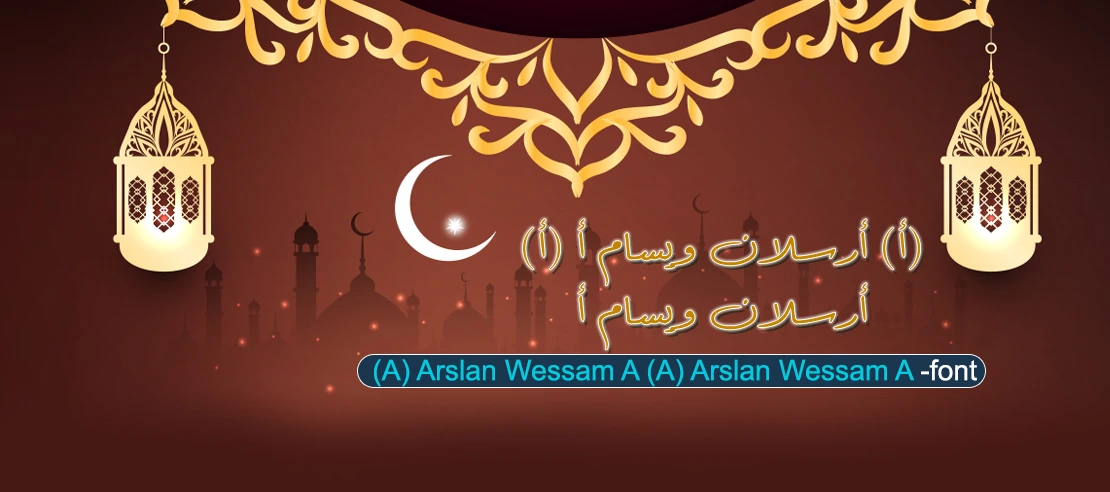
(A) Arslan Wessam A (A) Arslan Wessam A is the most broadly downloaded Arabic Font internationally. It is a remarkably versatile and exceptional arabic typeface that derives its characters and calligraphy from the Arabic Script.
The origins of Arabic Fonts and Calligraphy trace back to the time of the Quoran's inscription. This script has now established a global presence, being widely utilized on almost every continent. Its resemblance to the Urdu script is evident. Arabic Script encompasses five distinct writing styles, and the noteworthy aspect of this font is its suitability for all variations of Arabic Scripts. For a comprehensive understanding of the intricate designs and calligraphy, you can refer to the character map of this Arabic Font.
(A) Arslan Wessam A (A) Arslan Wessam A
Typography Sets Of (A) Arslan Wessam A (A) Arslan Wessam A Font
(A) Arslan Wessam A (A) Arslan Wessam A Font, Special Characters Typography Set